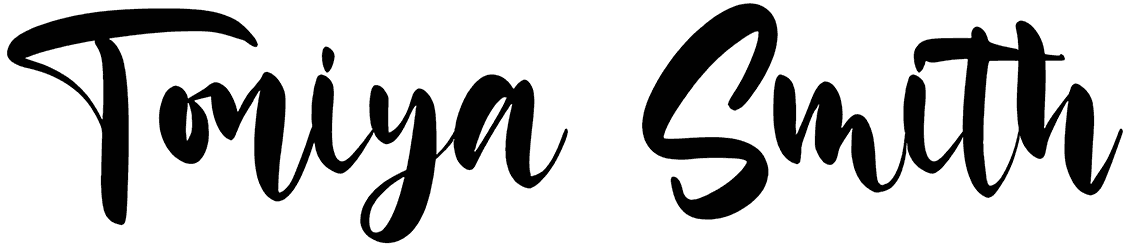
Toniya Smith Font
Toniya Smith is the epitome of elegance and simplicity that flows beautifully across the page, creating artwork that is both timeless and unique. This script font has a psychological beauty that can be playful and serious, depending on the use.
This handwritten font‘s intricate circles and curves are the perfect way to add a personal touch to your written communications. So let the essence of creativity flow in designing wedding cards, shop window signs, and album covers.